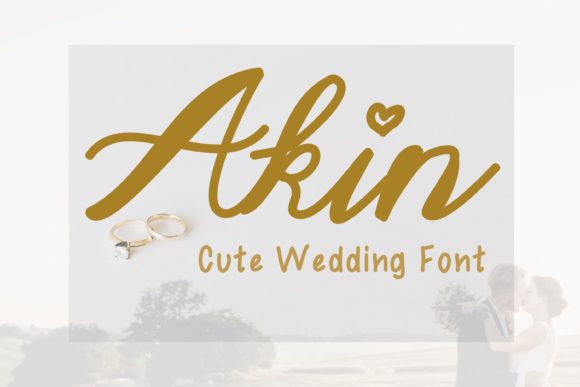
The Akin script font family is a true masterpiece, designed to ignite your creativity and elevate your designs to new heights. Its graceful curves and elegant strokes will transport you to a world of enchantment, where your words will dance across the page with captivating beauty. Whether you're crafting an unforgettable wedding invitation, designing stunning stationary art, or captivating your audience on social media, Akin is the perfect choice to add a touch of sophistication and allure. Let your imagination soar as you explore the endless possibilities of this exquisite font family. Dive into the world of Akin and unlock the power to create designs that leave a lasting impression.